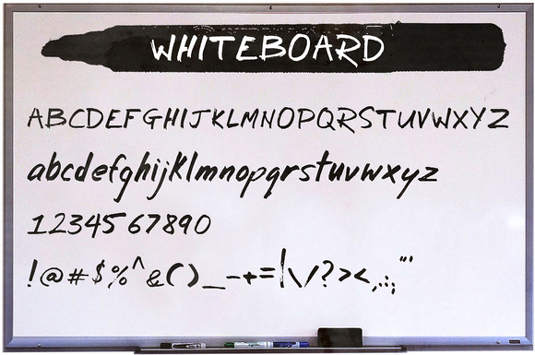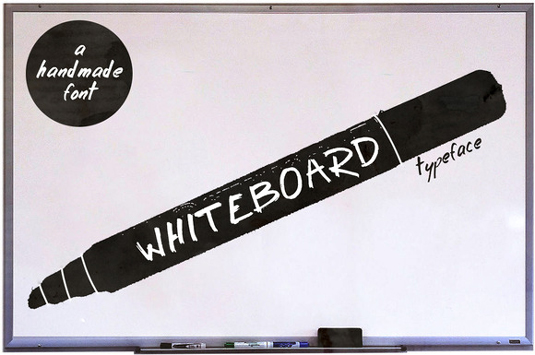
Font of the day: Whiteboard
Whiteboard by Amaara White
Kicking off our showcased typography is hand-drawn design Whiteboard, created by type design Amaara White. Featuring 87 characters, including letters, numbers and punctuation, Whiteboard is available free to download over on Creative Market. But hurry – the offer ends this week.